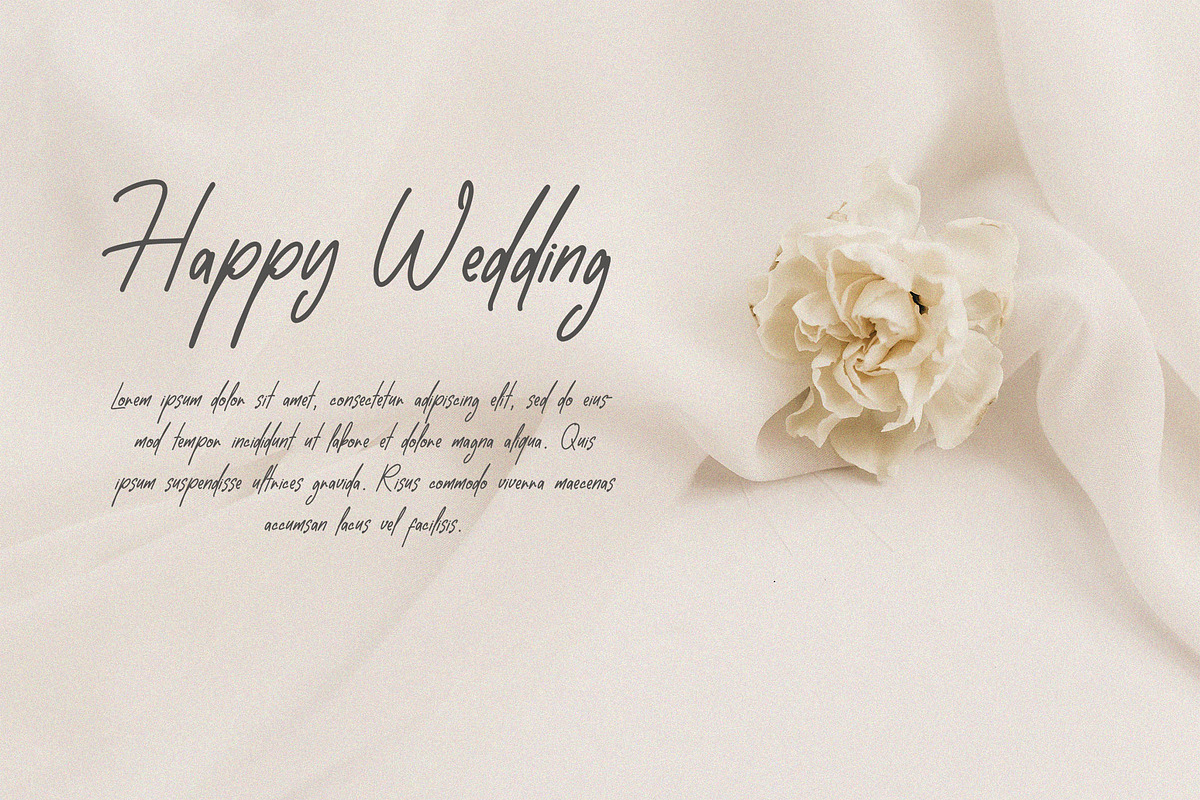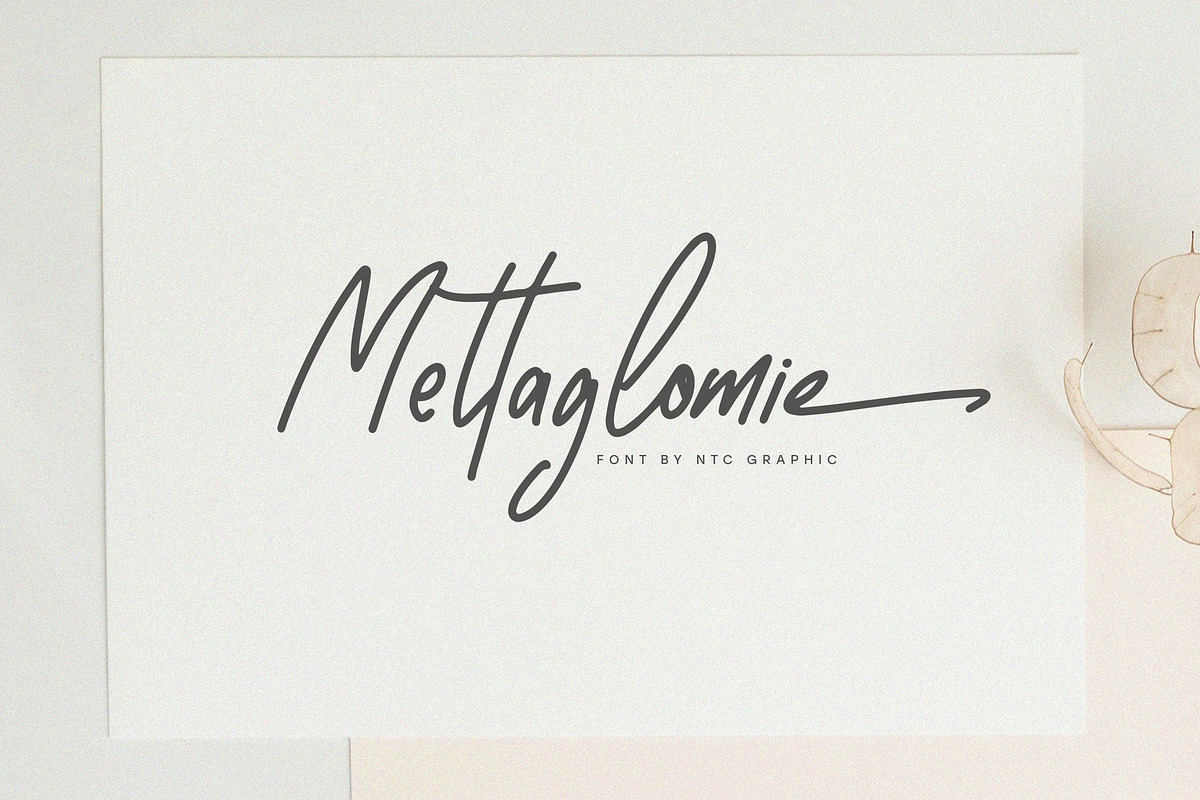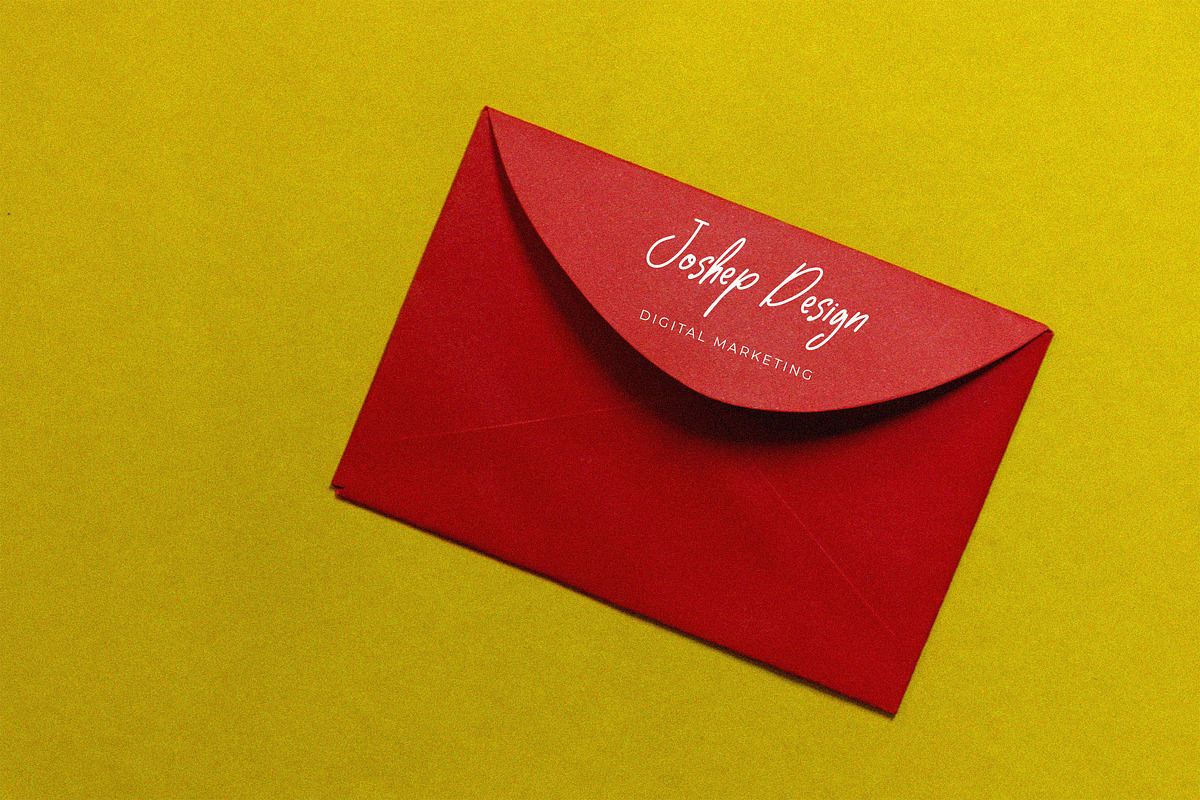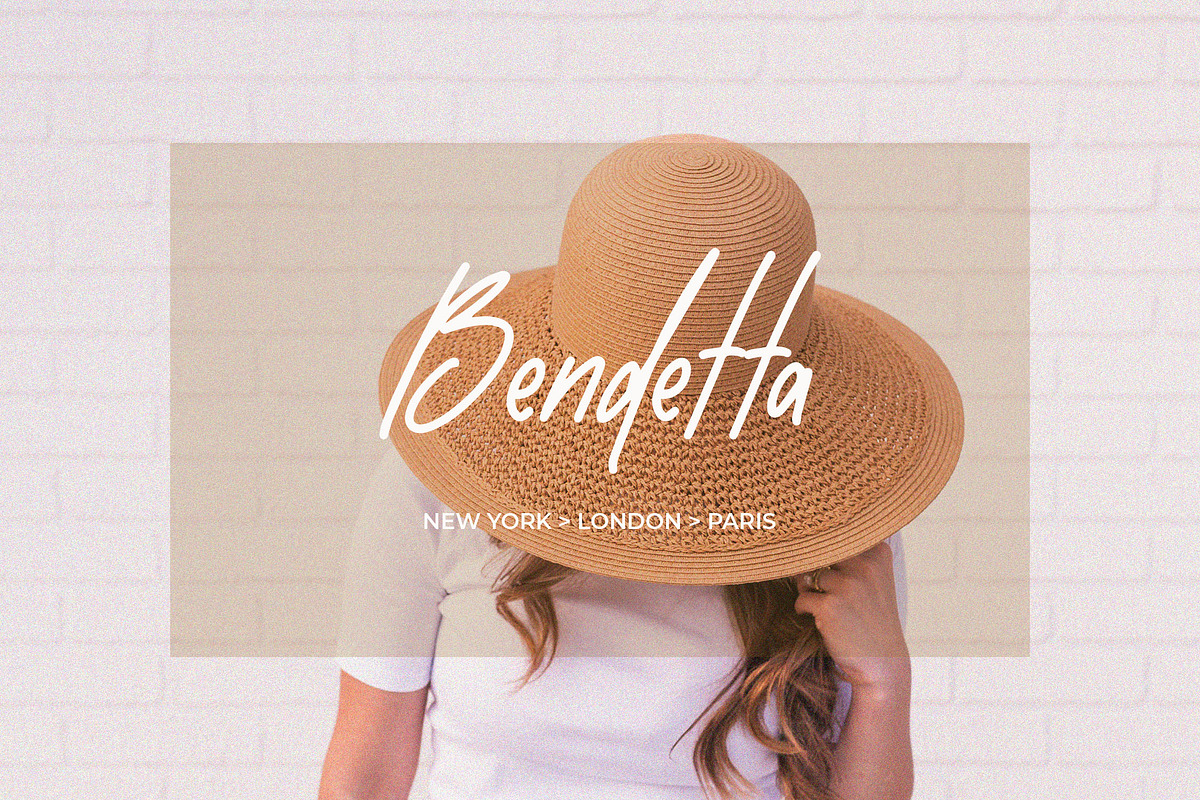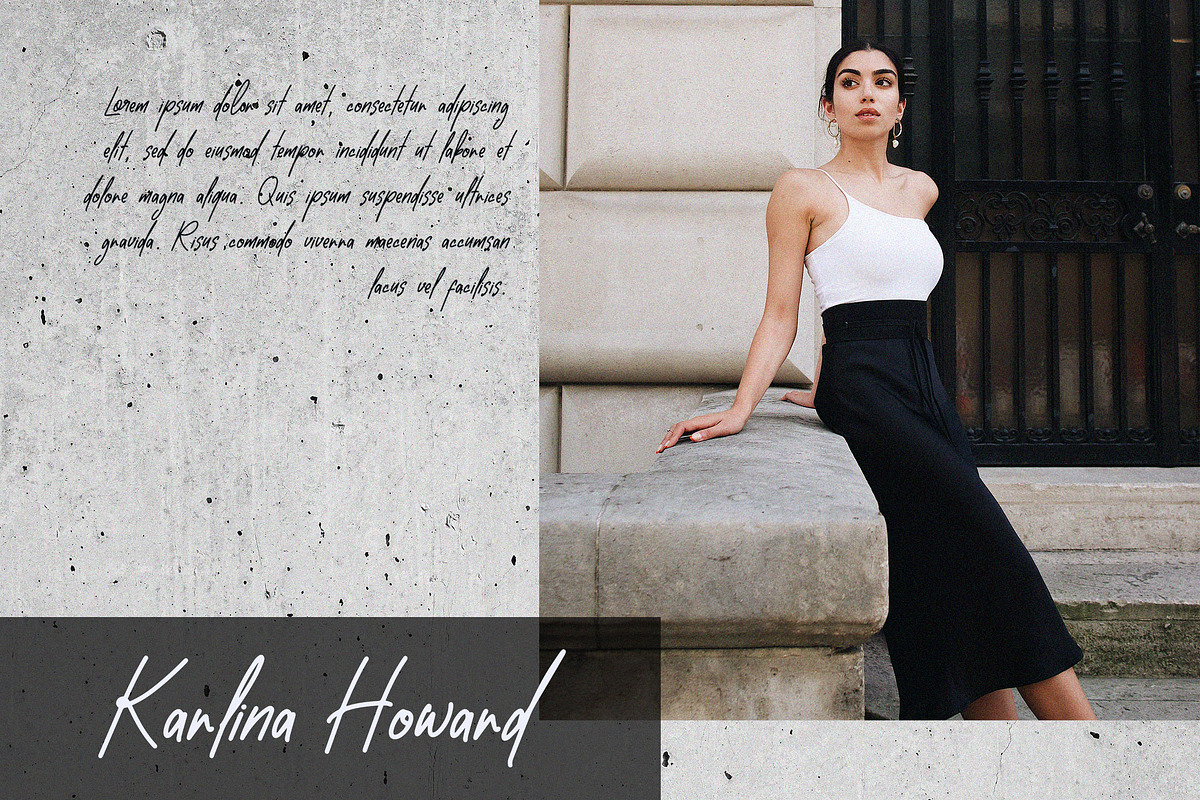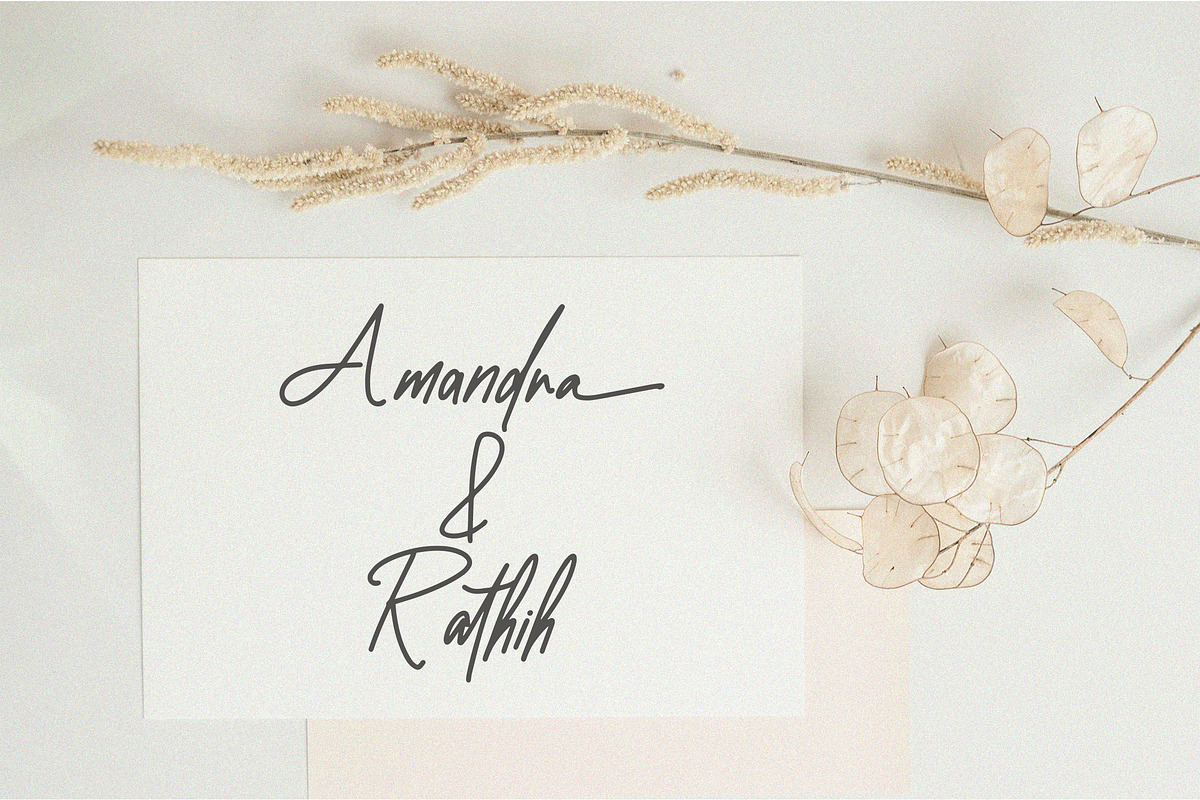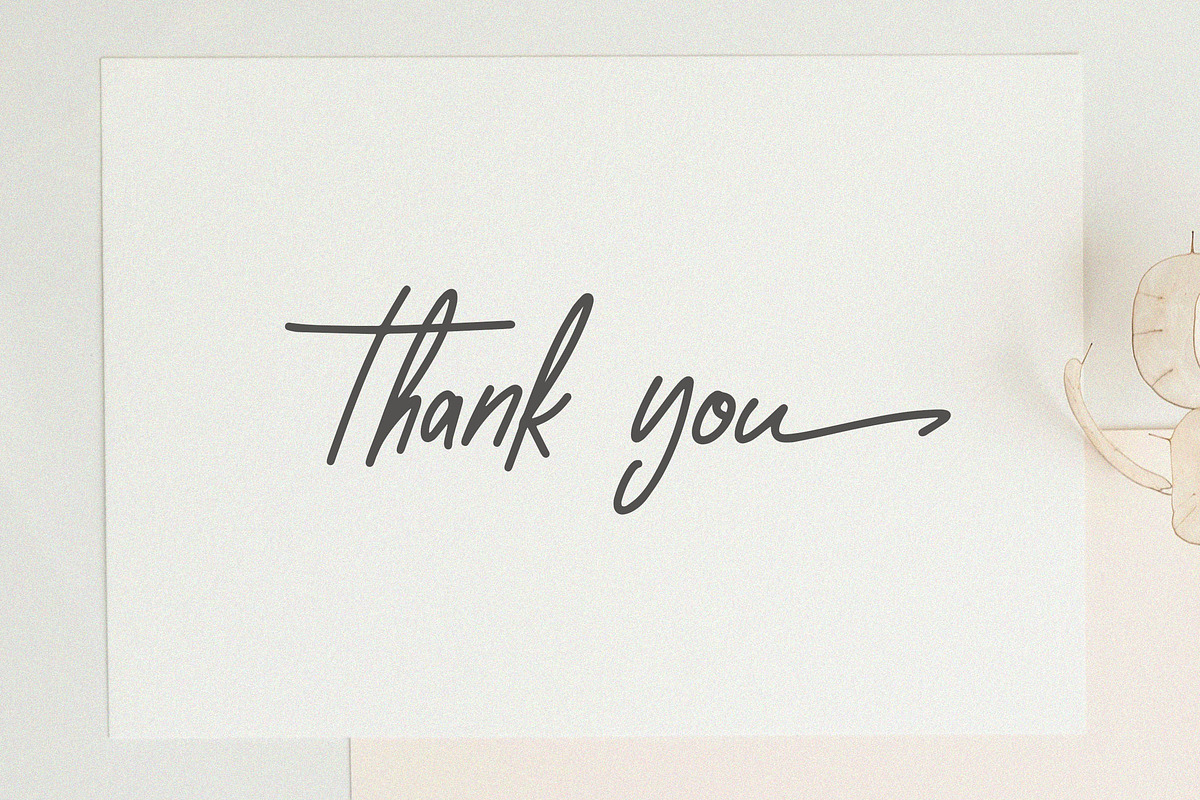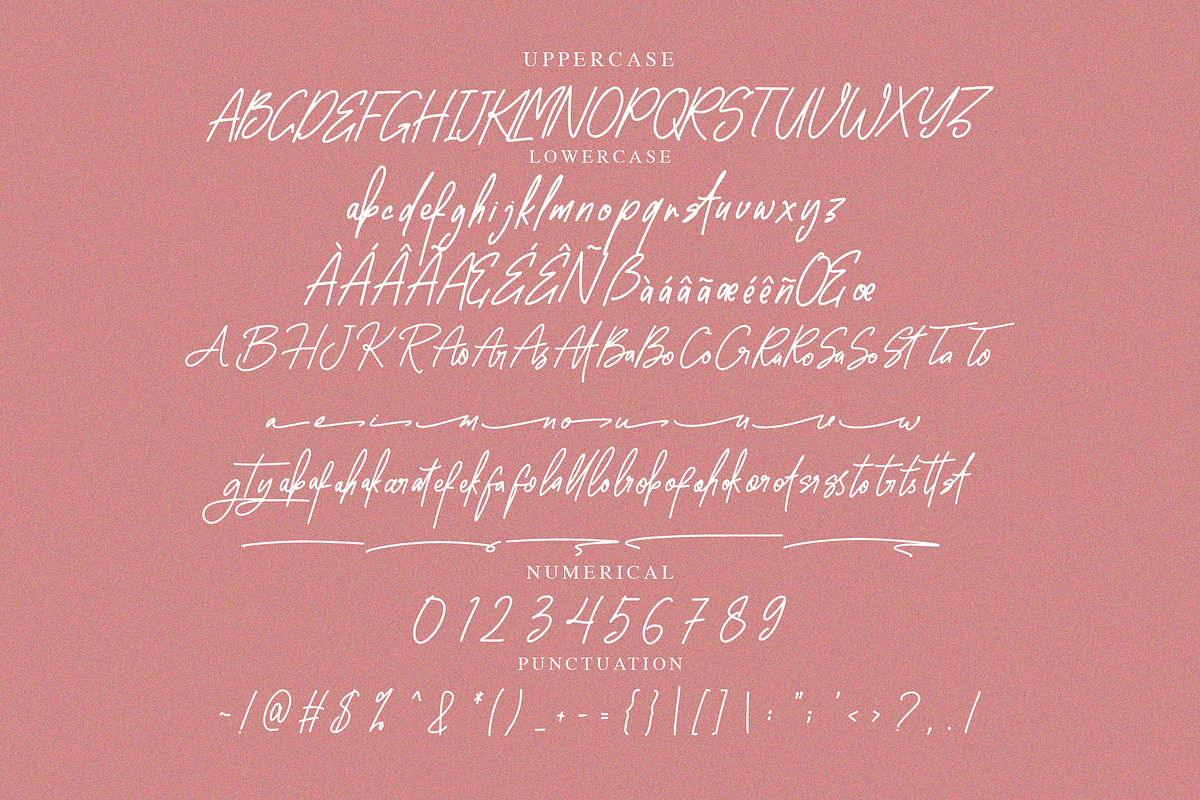
Mettaglomie Handwritten Font
Mettaglomie is a handwritten font with minimalist style. This font style made with unique shapes font characters are really good. Can be applied to support the graphic appearance of the product to be more attractive.
- Stylistic Alternate